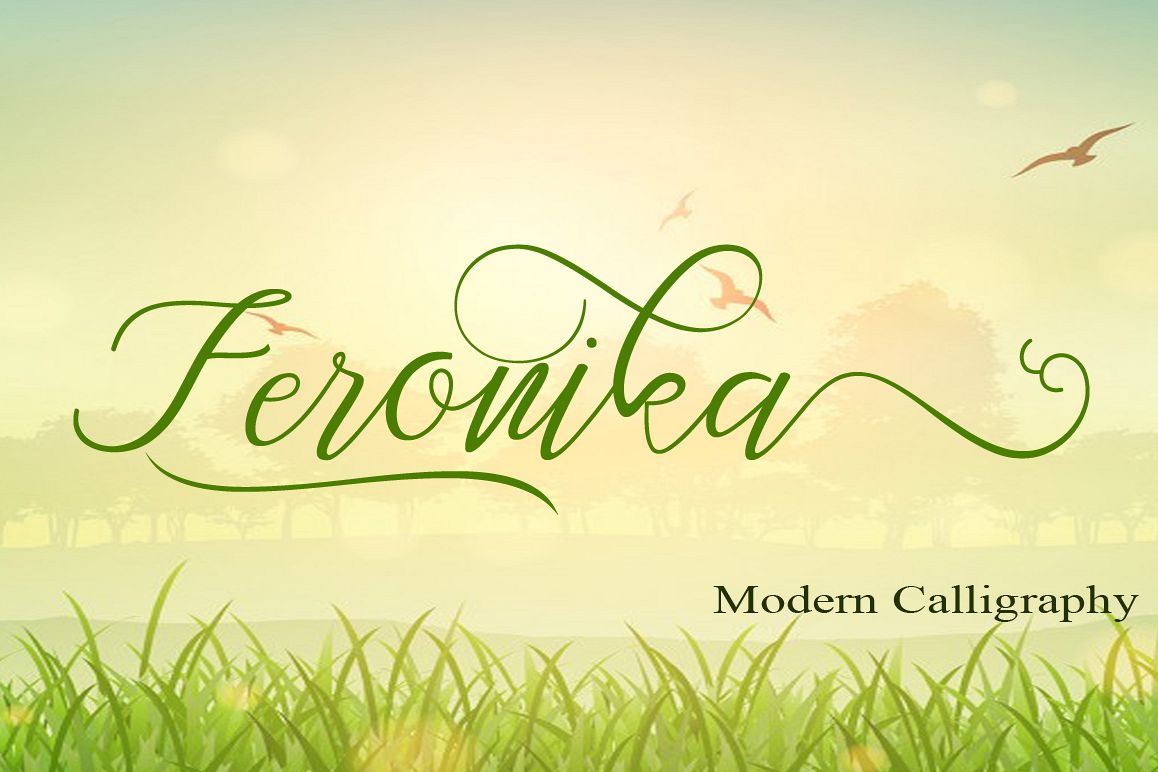
Feronika
Feronika Script is a stylish calligraphy font that features a varying baseline, smooth line, classic and elegant touch. Can be used for various purposes.such as headings, signature, logos, wedding invitation, t-shirt, letterhead, signage, lable, news, posters, badges etc.
The Features of this fonts is:
• Standart ligatures
• PUA Unicode (Private Use Areas)
• Swash